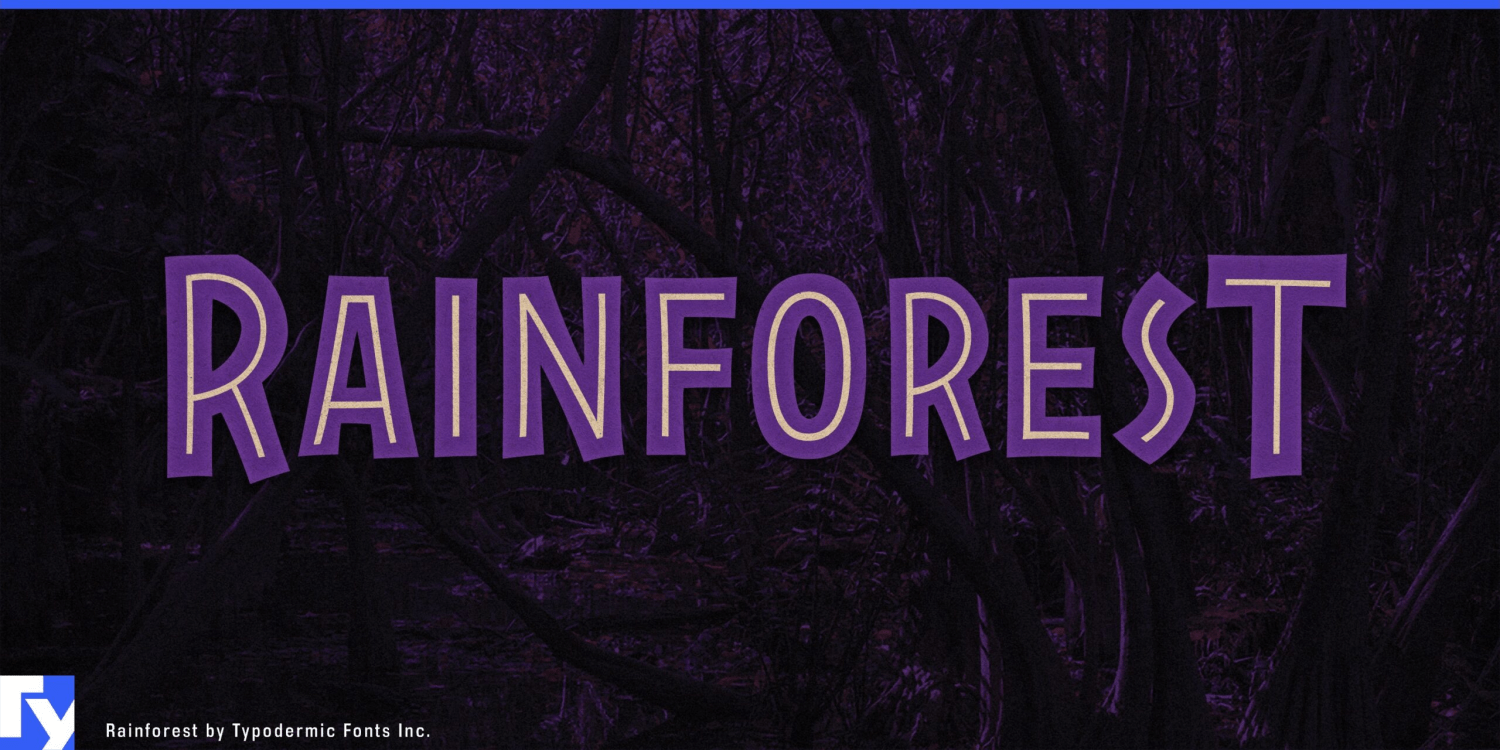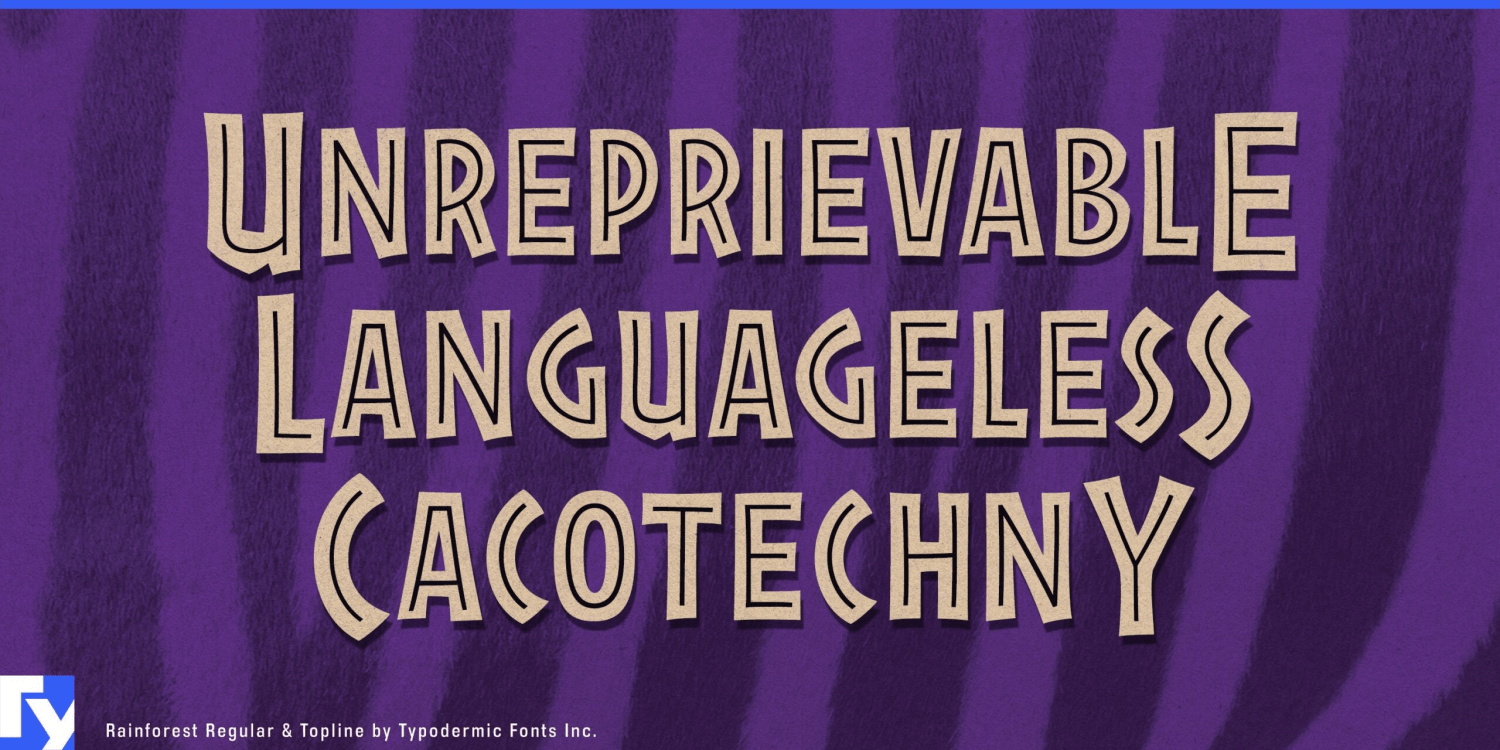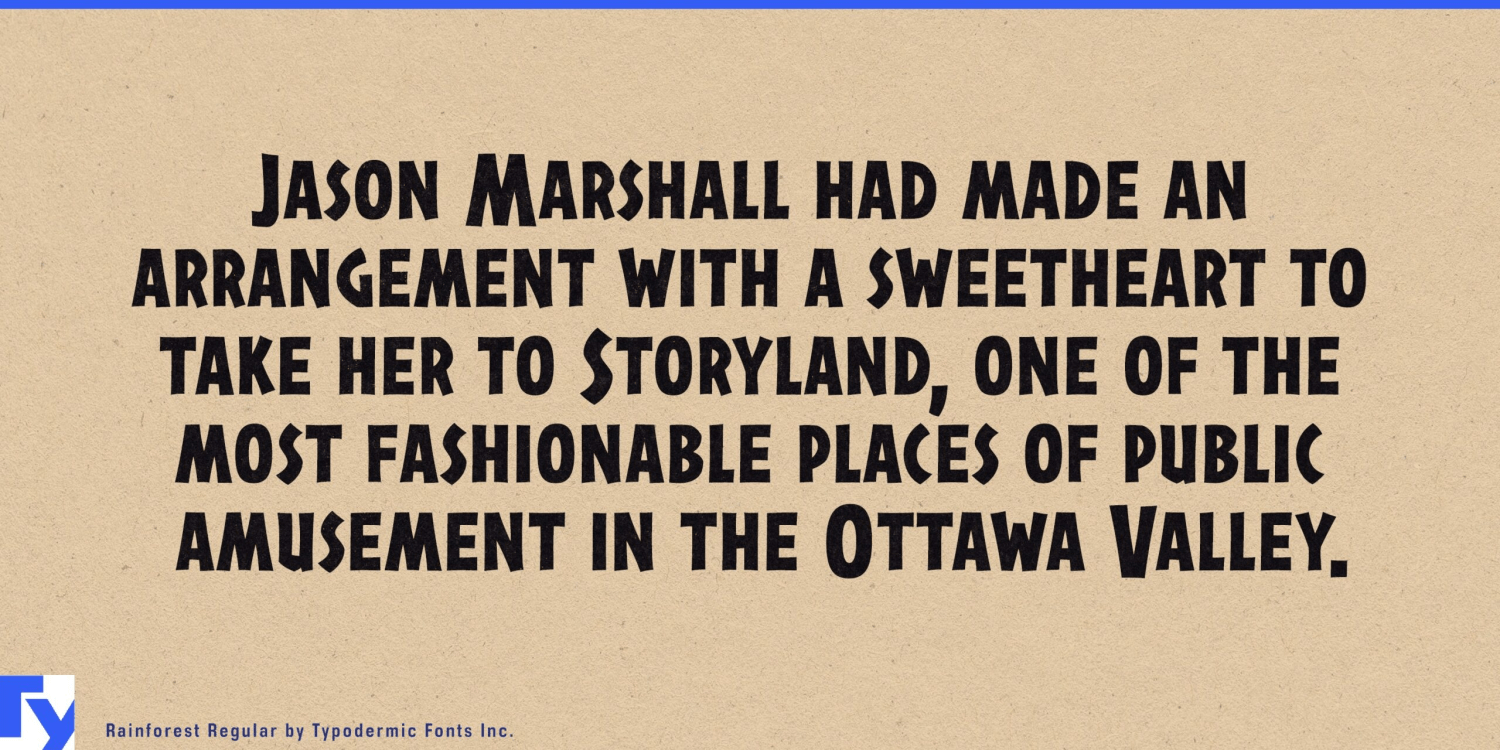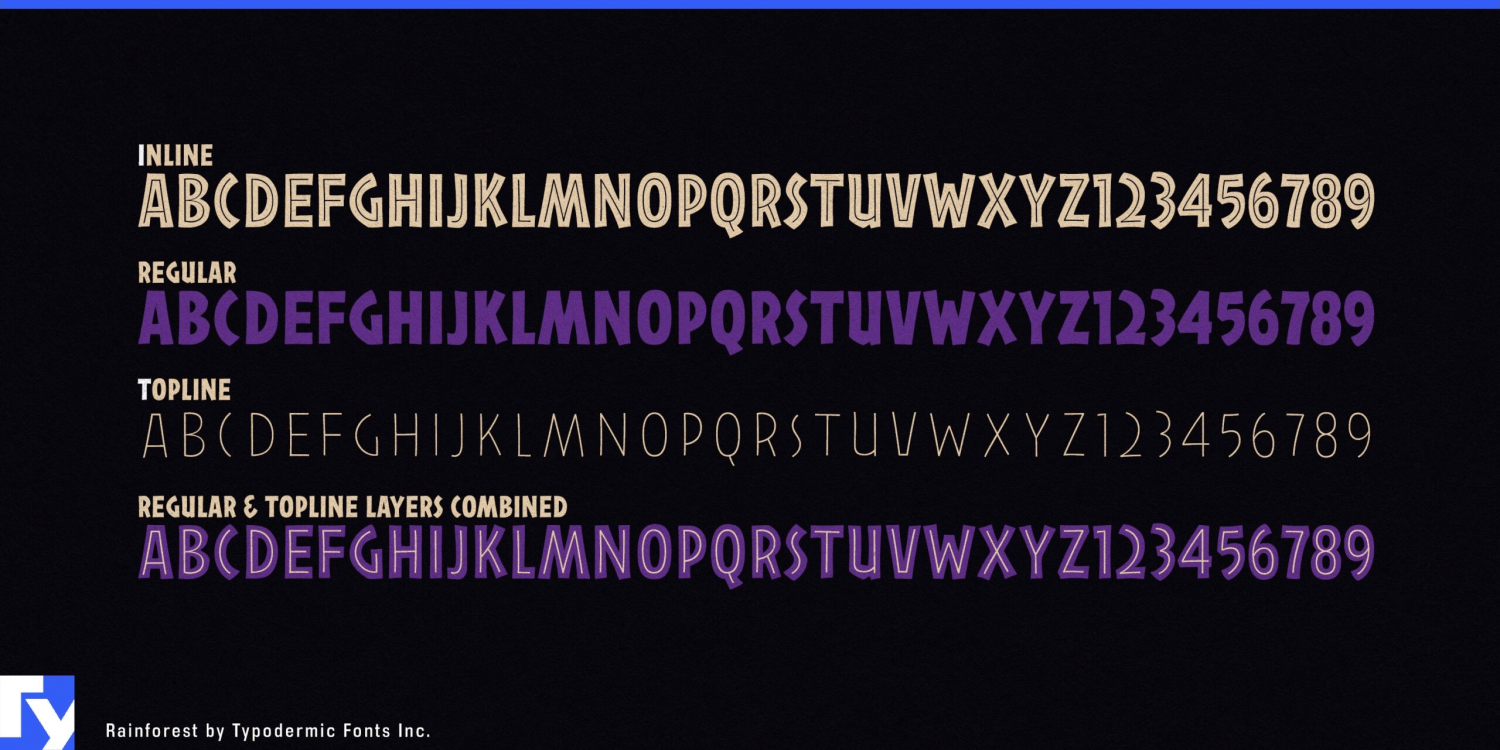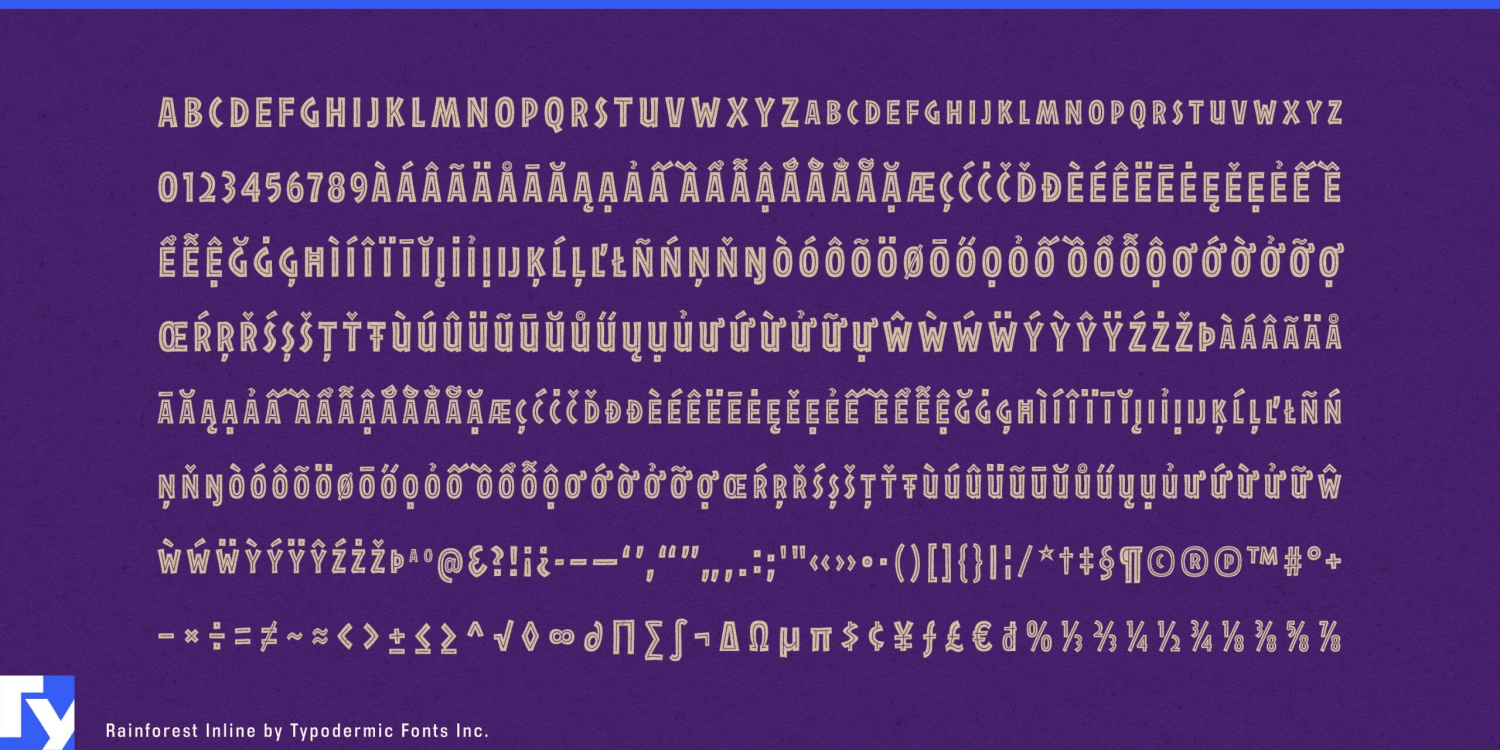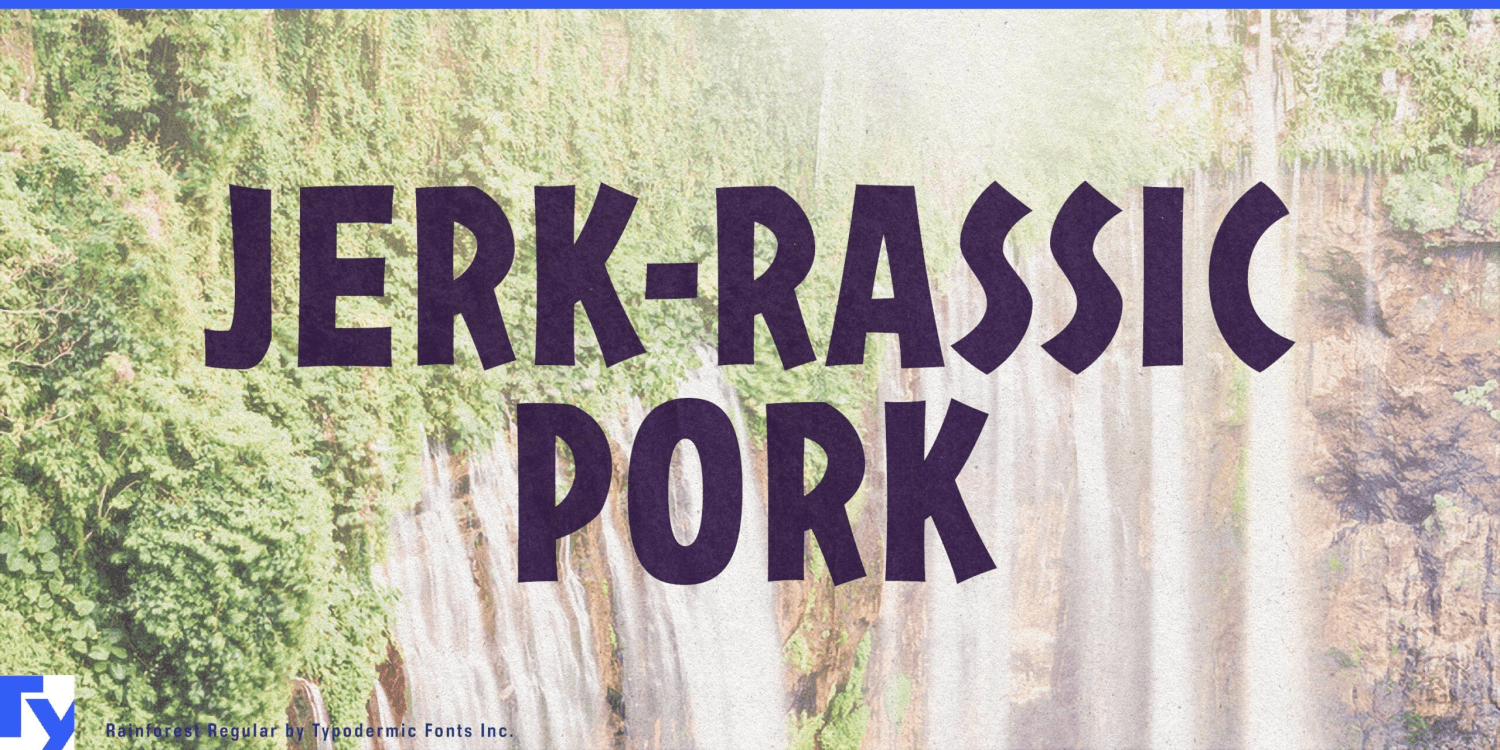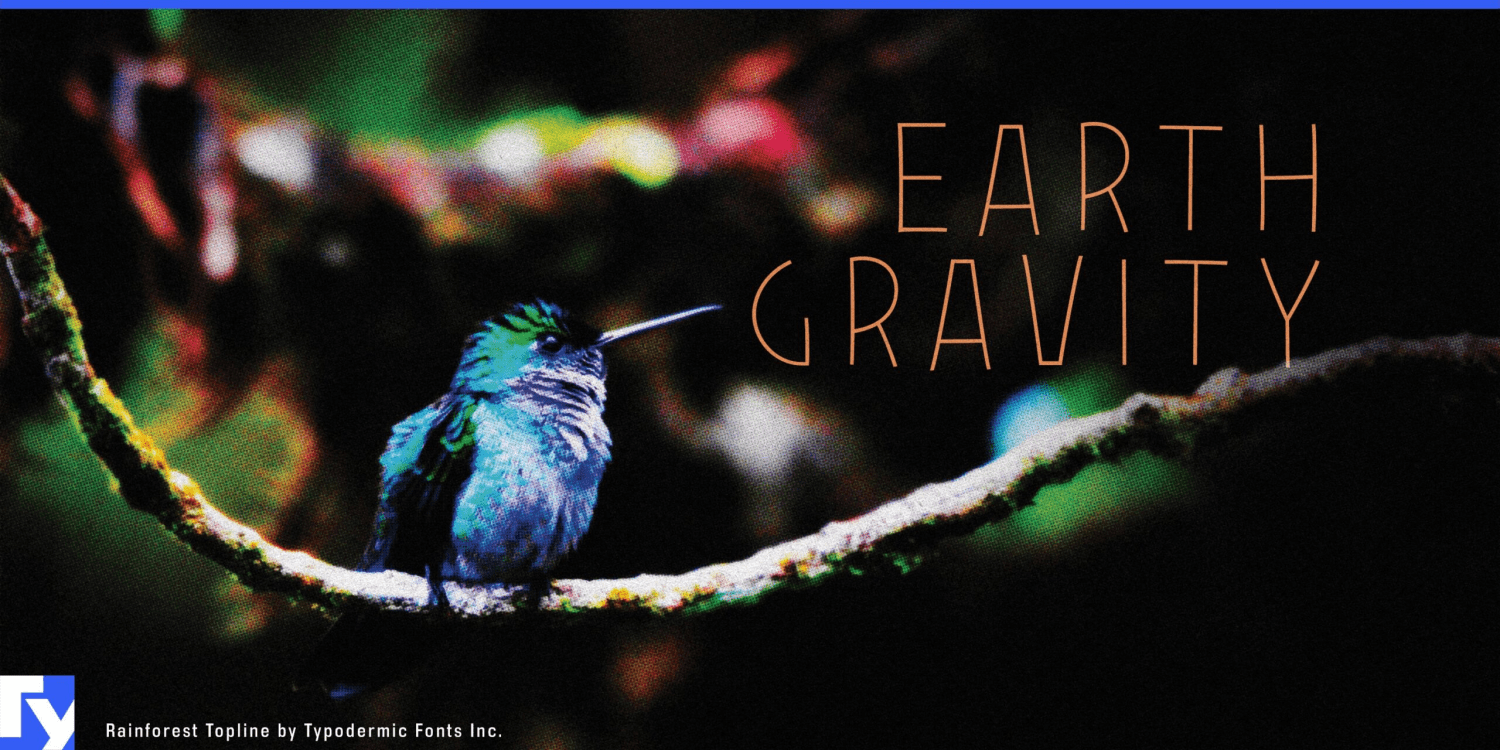
Rainforest
Rainforest is a condensed small-caps display face with blunt, irregularly cut forms and enough vertical mass to make a short word dominate a sign, package, or poster. Regular, Inline, and Topline styles can be combined into layered treatments, giving designers several ways to build strong foreground and accent-color combinations without changing the underlying proportions.
Caribbean resorts and island-leisure businesses are a natural setting. Beach clubs, waterfront hotels, resort pools, catamaran excursions, snorkeling operators, dive centers, marina events, and tropical destination campaigns can use Rainforest for venue names, excursion headings, pool programs, restaurant categories, merchandise, seasonal graphics, and event titles. Saturated combinations of aqua, coral, mango, lime, violet, or other strong colors can push the lettering toward sunny recreation without relying on faux-tribal motifs or dated jungle caricature.
Food and drink extend that energy into hot-pepper sauces, jerk marinades, spice blends, plantain chips, tropical fruit drinks, frozen treats, seafood concepts, and contemporary Caribbean food brands. Rainforest can handle product names, sauce varieties, pouch fronts, bottle labels, takeaway graphics, and market displays. Its condensed proportions leave room for illustration and supporting information while the layered styles give flavors and varieties plenty of visual presence.
The prehistoric side of Rainforest remains just as useful. Natural-history museums, dinosaur parks, travelling fossil exhibitions, palaeontology galleries, immersive attractions, and family science centers can use it for exhibit titles, species zones, attraction names, visitor campaigns, educational kits, and souvenir merchandise. Dinosaur figure ranges, fossil excavation kits, STEM activity sets, and museum-shop products can extend the same visual language across packaging and retail displays.
Tropical aquariums, coral-reef exhibits, sea-turtle centers, botanical gardens, tropical conservatories, canopy walks, and rainforest visitor attractions provide another natural environment. Exhibit headings, visitor programs, trail sections, merchandise, and family activity materials can draw on Rainforest’s irregular condensed forms while the Inline and Topline styles introduce color and separation against dense photography or illustration.
Water parks, resort kids’ clubs, splash zones, mini-golf attractions, and other family leisure businesses can use the same layered construction to distinguish areas, activities, or seasonal programs. Rainforest is equally at home among lagoons, reef tanks, tropical foliage, fossil beds, and very large reptiles; its combination of condensed mass, irregular forms, and layered color gives those worlds a strong display voice.